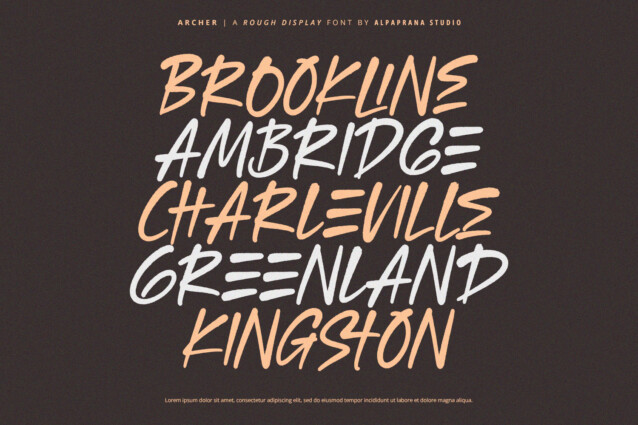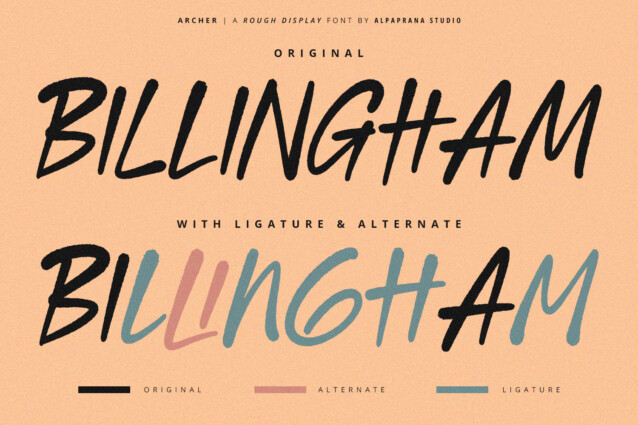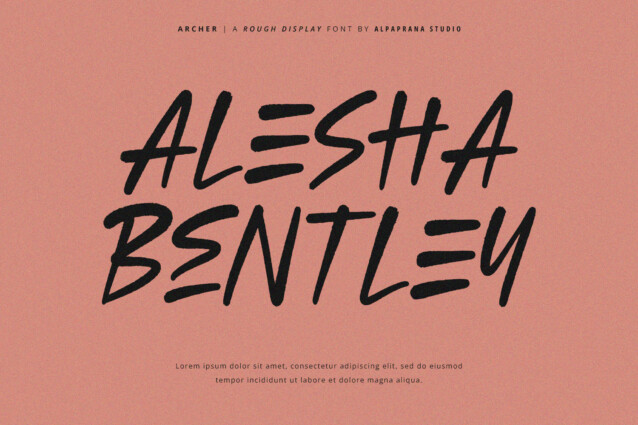
Archer Font is a rough display font with natural and vintage feels. It will be perfectly used for Branding, Logo Design, Lettering, Logotype, Clothing, Poster, magazine, packaging, posters, shopping bags, t-shirts, book covers, photography, special events and other design project.